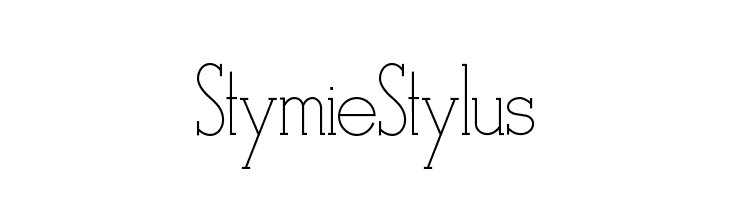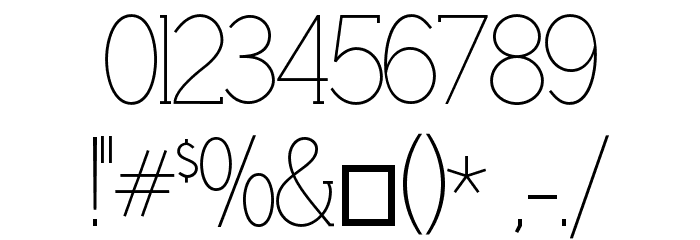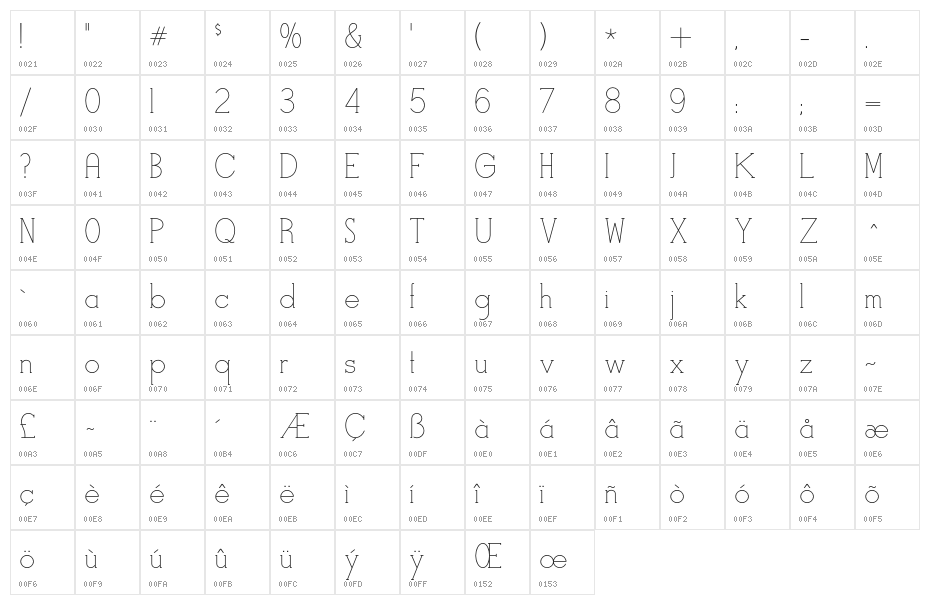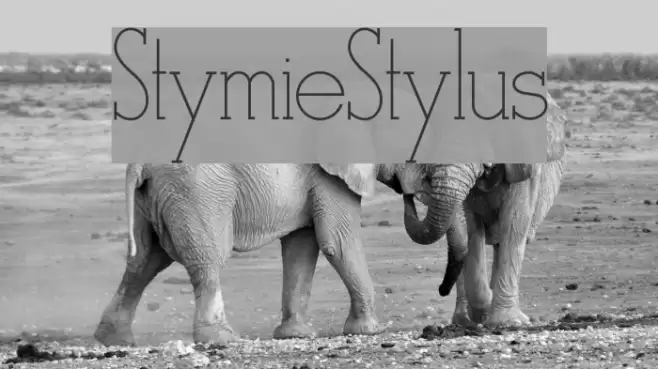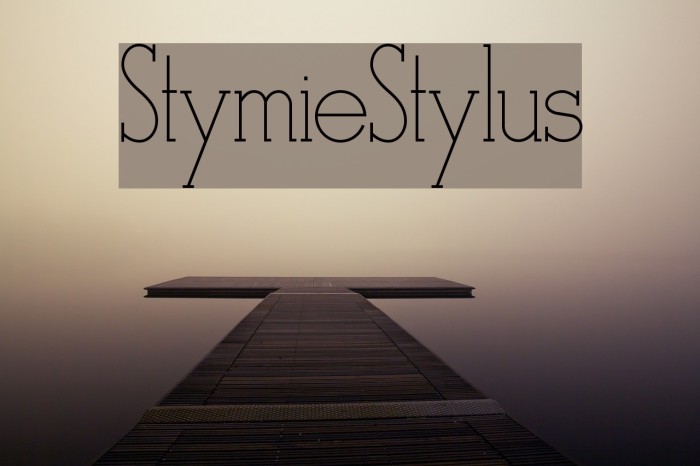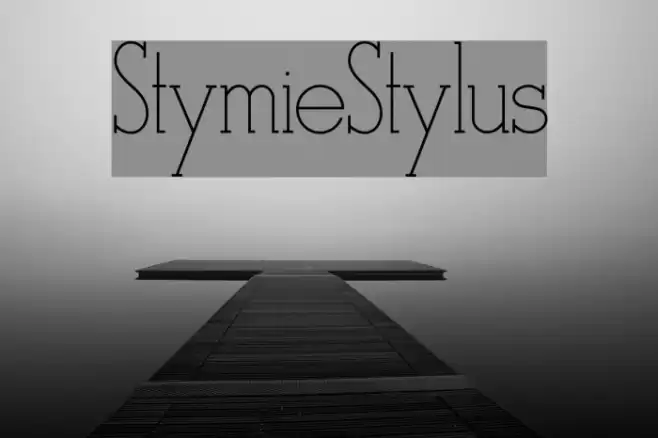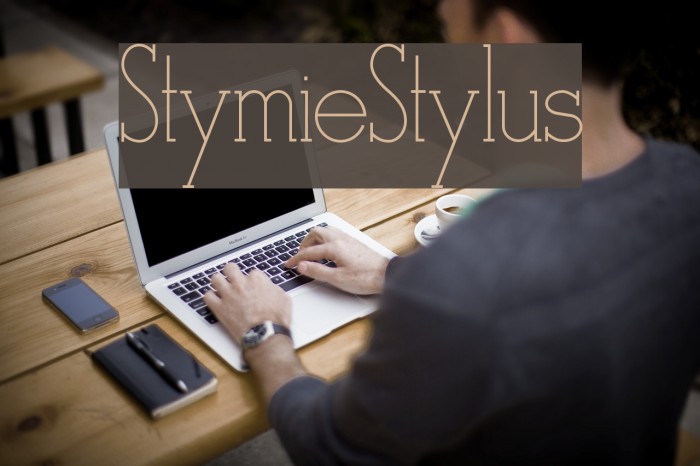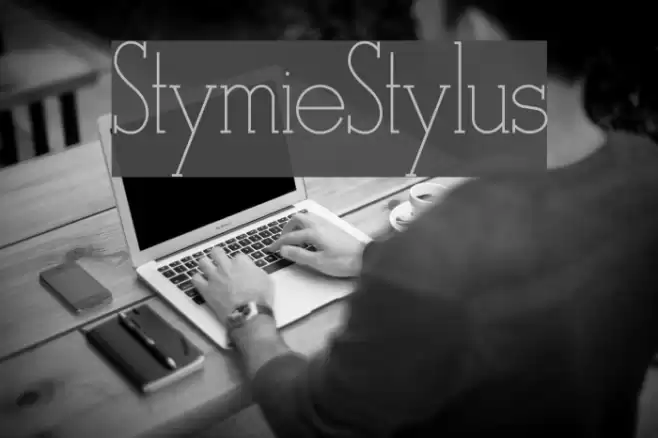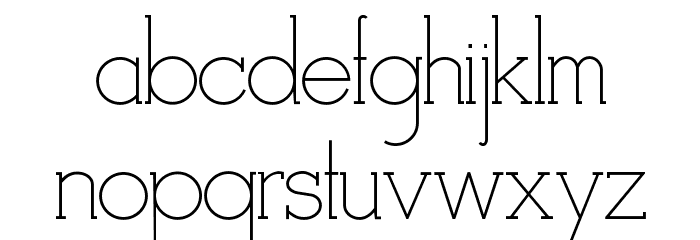
StymieStylus Font
StymieStylus Description
This font features a geometric and modern design with clean, thin lines and a high level of legibility. The characters are constructed with a consistent stroke width, giving it a sleek and minimalist appearance. The uppercase letters are tall and narrow, while the lowercase letters maintain a similar structure, enhancing readability. The numerals are distinct and align well with the overall style, making them suitable for various applications. Special characters are included, offering a comprehensive set for diverse uses. The font's simplicity and elegance make it versatile for both digital and print media.
| Proposed Projects | Ideal for branding, editorial design, digital interfaces, and minimalist posters. |